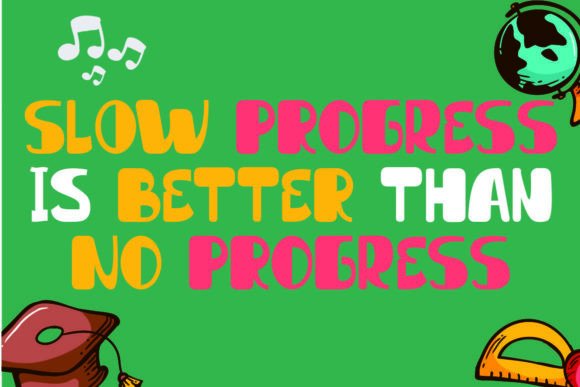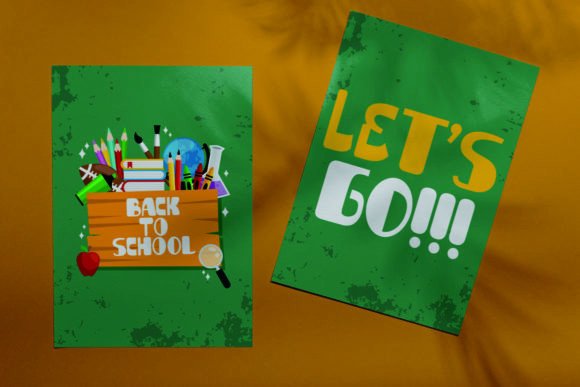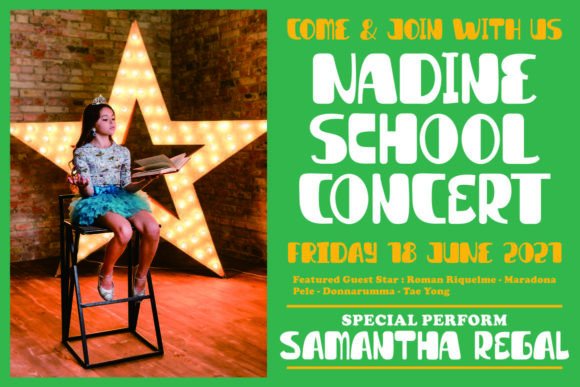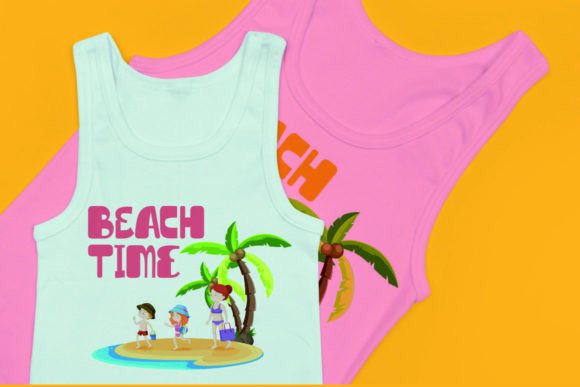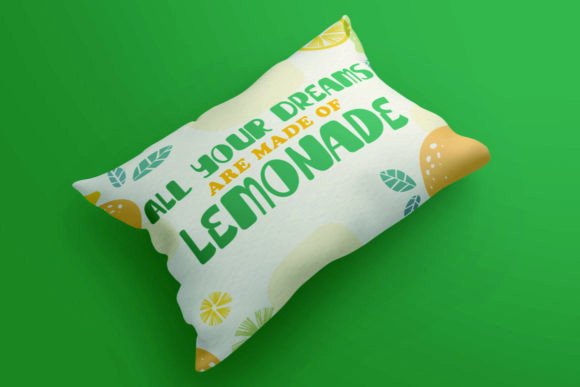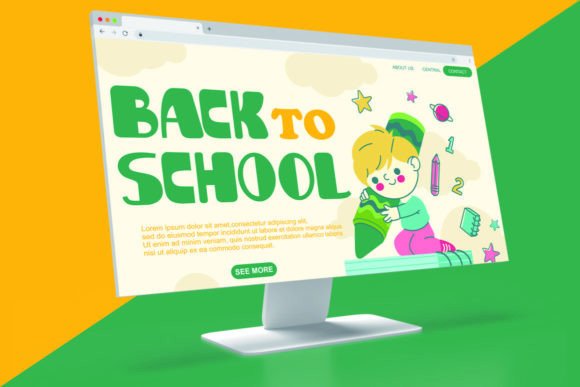
Introduction to Junior Schoolboy Font
Do you remember the excitement of creating artwork as a child, with crayons and markers, bringing your imagination to life? The thrill of seeing your ideas take shape and the joy of sharing them with others. As designers, we strive to recapture that magic in our work, and the right font can make all the difference. That’s where the Junior Schoolboy Font comes in – a high-quality, fun display font that’s perfect for bringing a touch of whimsy to your creative projects.
Whether you’re working on a children’s book, a logo for a kids’ brand, or even just a fun design for a sticker or t-shirt, the Junior Schoolboy Font is a valuable resource that’s sure to add a playful touch. With its transparent background and free download option, you can easily incorporate it into your design without worrying about background distractions.
Key Features of Junior Schoolboy Font
- Unique and playful font style with a transparent background
- Comes in a single weight, ideal for casual and informal designs
- Designed to evoke a sense of nostalgia and childhood charm
Honest Review: Junior Schoolboy Font
As a designer, I’m always on the lookout for unique and high-quality design resources to elevate my creative projects. Recently, I stumbled upon the Junior Schoolboy Font, and I’m excited to share my thoughts on this charming font.
- Playful and whimsical feel that’s perfect for children’s content or educational materials.
- Clear and legible, making it suitable for body text or headings.
- Transparent background, allowing for easy customization and integration with other design elements.
- May not be suitable for corporate or formal projects, as it has a more casual tone.
- Not as versatile as some other fonts, which may limit its use in certain design contexts.
Overall, I’m impressed with the Junior Schoolboy Font’s unique personality and design quality. While it may have some limitations, it’s a great addition to any designer’s toolkit, especially for creative projects that require a playful touch.
Some tips for getting the most out of the Junior Schoolboy Font include using it for children’s products, educational materials, and casual social media posts. You can also use it to add a playful touch to your designs, making them more engaging and memorable.
Comparison to Junior Schoolboy Font: While both fonts are playful and informal, Comic Sans MS is more versatile and can be used in a wider range of projects. Junior Schoolboy Font is more suited for specific design projects that require a nostalgic feel.
Comparison to Junior Schoolboy Font: While Pacifico is more elegant and refined, Junior Schoolboy Font is more playful and informal. Pacifico is better suited for high-end design projects, while Junior Schoolboy Font is more suited for casual and nostalgic designs.